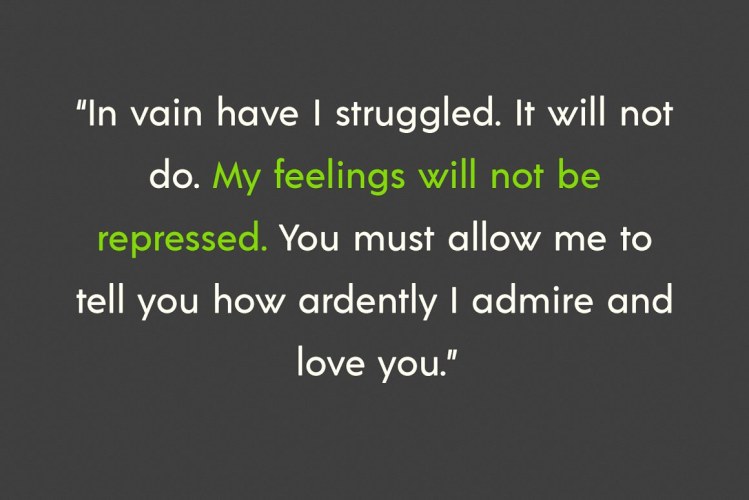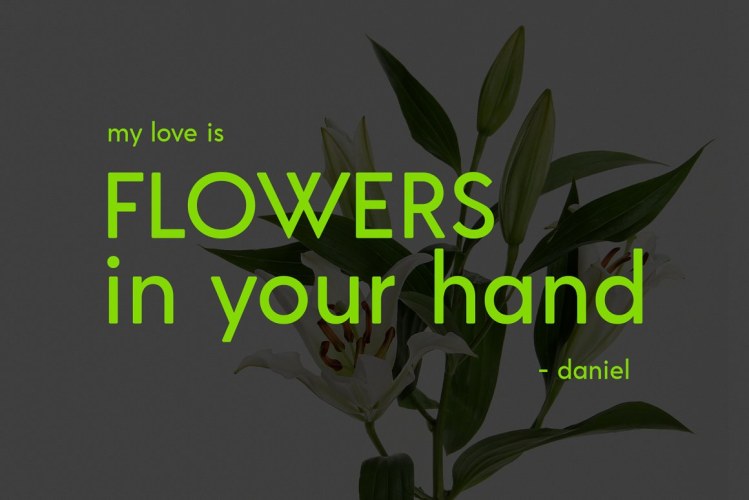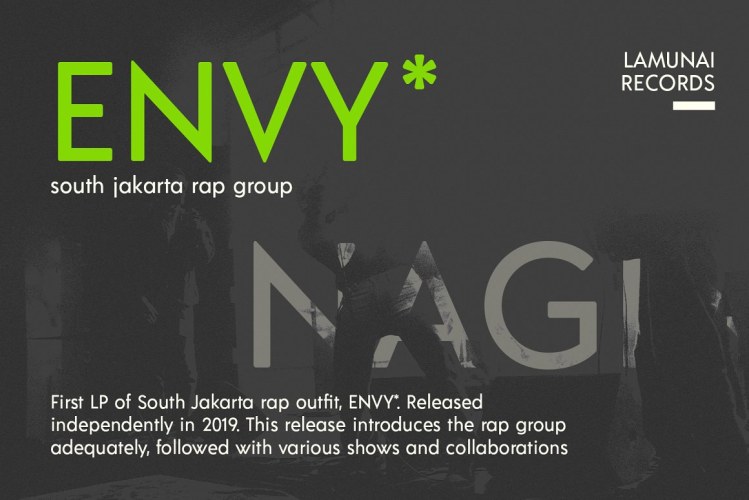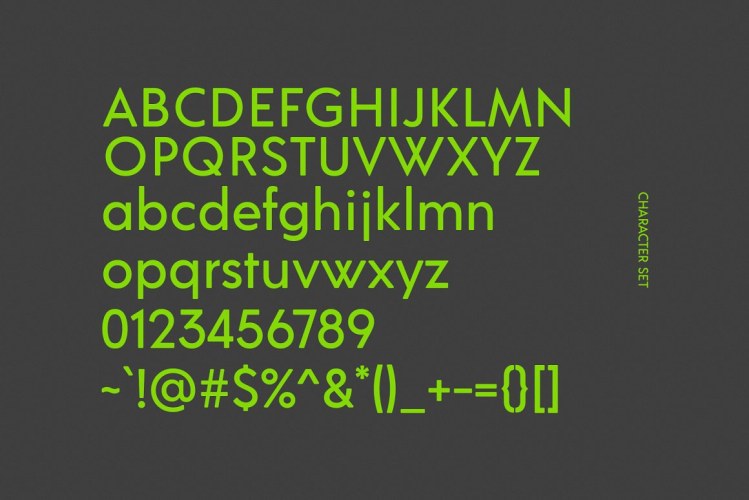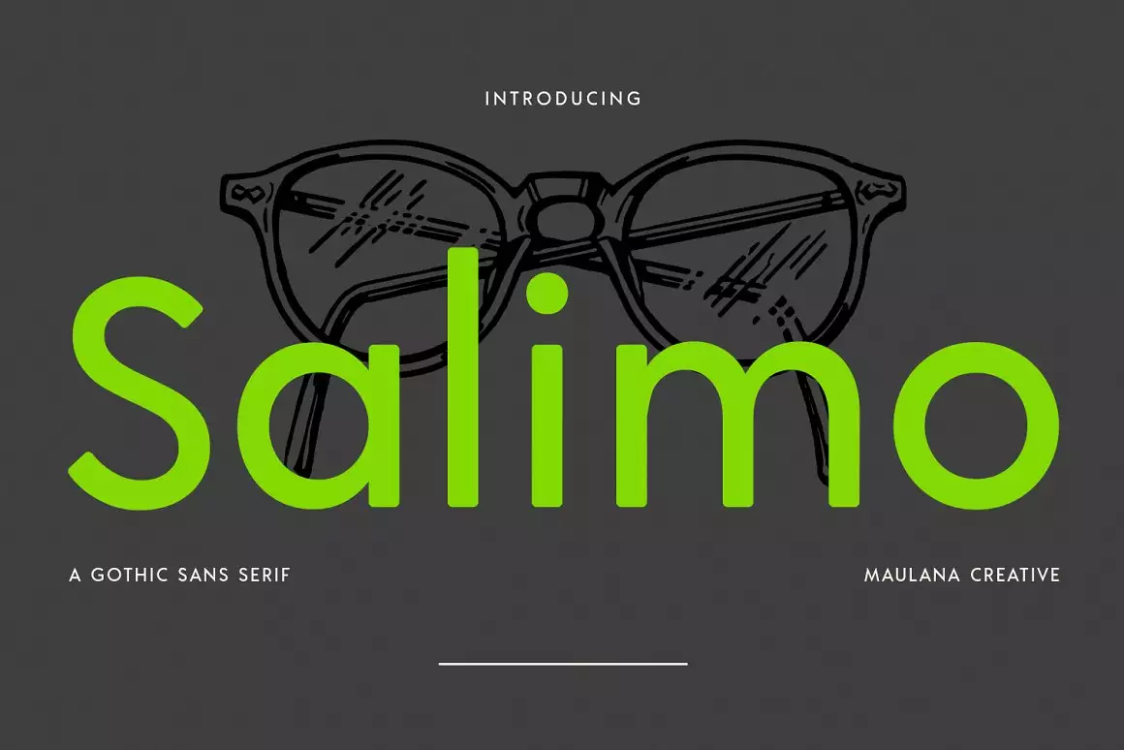
Salimo Gothic Sans Serif Font
Salimo is a modern gothic sans display font. Regular stroke, fun character with a bit of ligatures and alternates. To give you an extra creative work. Salimo font support multilingual more than 100+ language. This font is good for logo design, Social media, Movie Titles, Books Titles, a short text even a long text letter and good for your secondary text font with script or serif. Make a stunning work with Salimo font.
Where Salimo Gothic Sans Serif Font works best
Salimo Gothic Sans Serif Font stays legible at small sizes, which makes it a strong choice for navigation, buttons and dashboards in web design and app interfaces.
Clean sans serifs like Salimo Gothic Sans Serif Font are the default language of SaaS, fintech and product branding.
What is Salimo Gothic Sans Serif Font good for?
Salimo Gothic Sans Serif Font is a Sans Serif Fonts typeface tagged Branding, Creative, Display, Modern. It works well for headlines, logos, posters, social media graphics and branding projects that need a distinctive sans serif fonts look.